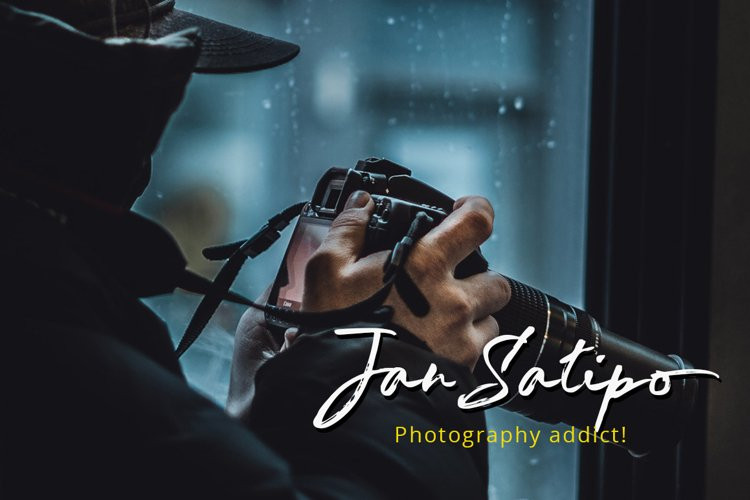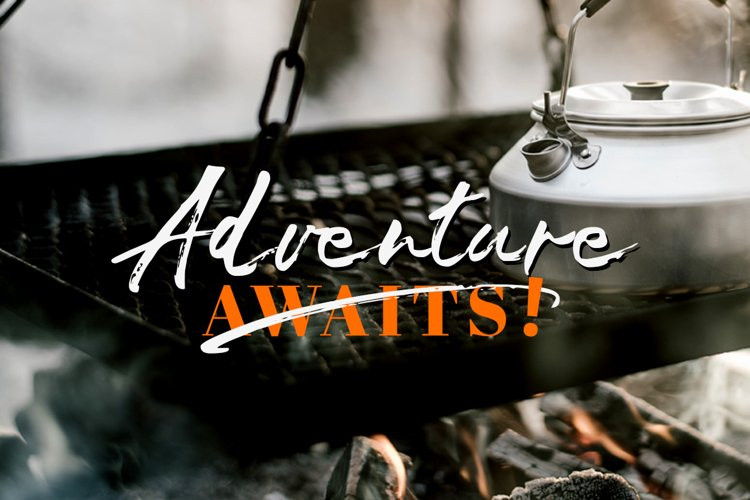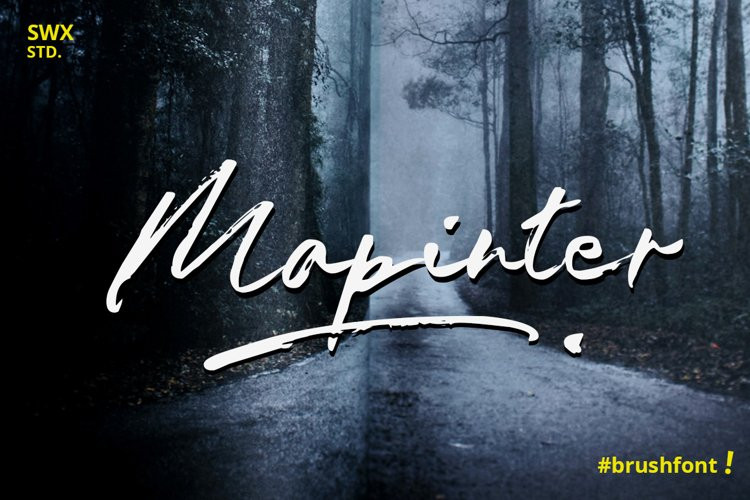
Mapinter Font
A fresh and natural font ready to give your design project looks great. This is very suitable for a beautiful tagline, title, cover book, logo, some of the daily quotes, invitation, poster, and any design project that needs natural touches.